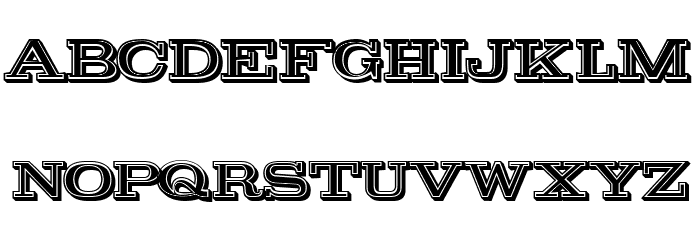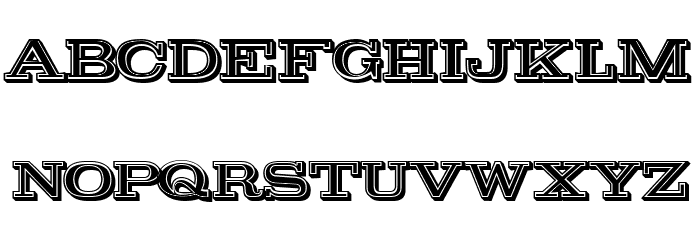
Thomson 3D Filled Regular Font
This font features a bold, three-dimensional look with a filled interior and a prominent outline, creating a striking visual effect. The uppercase letters are designed with a classic serif style, adding a touch of elegance and sophistication. The 3D aspect is achieved through a clever use of shading and layering, giving the text a sense of depth and dimension. The characters are evenly spaced, ensuring readability while maintaining a strong visual impact. This font is ideal for making headlines stand out or for use in branding where a bold statement is needed.
A bold, 3D serif font with filled interiors and prominent outlines.
- Proposed Projects: Ideal for headlines, posters, branding, and any project requiring a bold, eye-catching typeface.